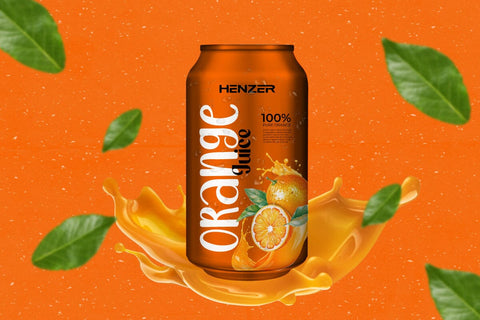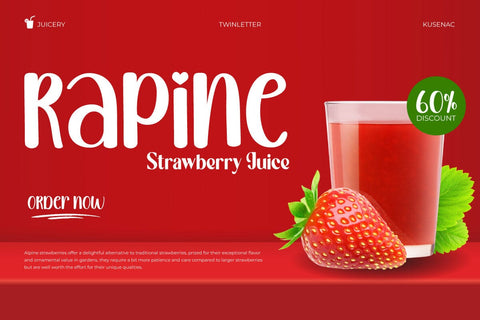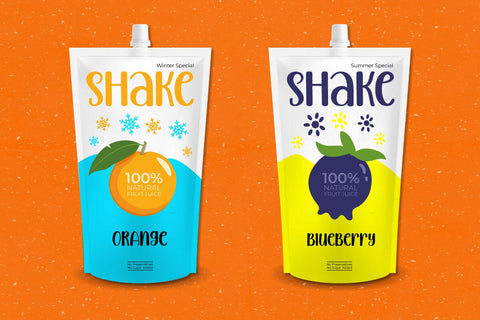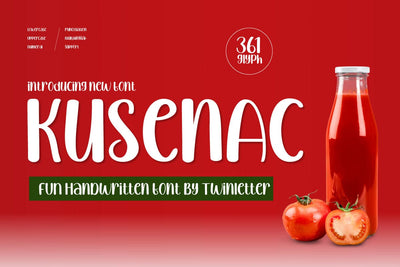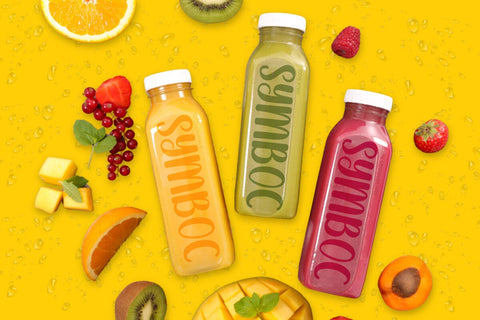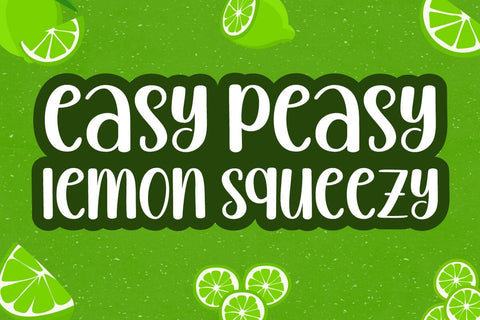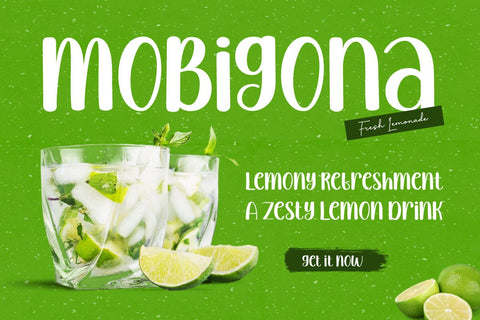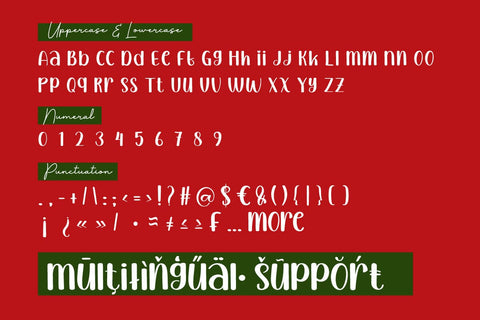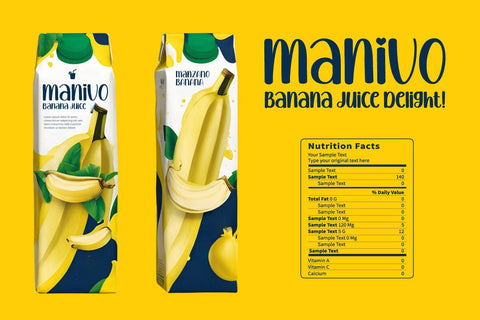
Kusenac - Handwritten Display Font
Add a personal touch to your designs with Kusenac, a Handwritten Display Font that captures the charm of natural handwriting. Ideal for invitations, greeting cards, branding, and more, Kusenac brings warmth and authenticity to your projects. Each character is carefully crafted to mimic the fluidity and imperfections of real handwriting, creating a unique and heartfelt appearance. The playful and whimsical style of Kusenac makes it versatile and suitable for a wide range of creative applications, ensuring your designs feel intimate and engaging.